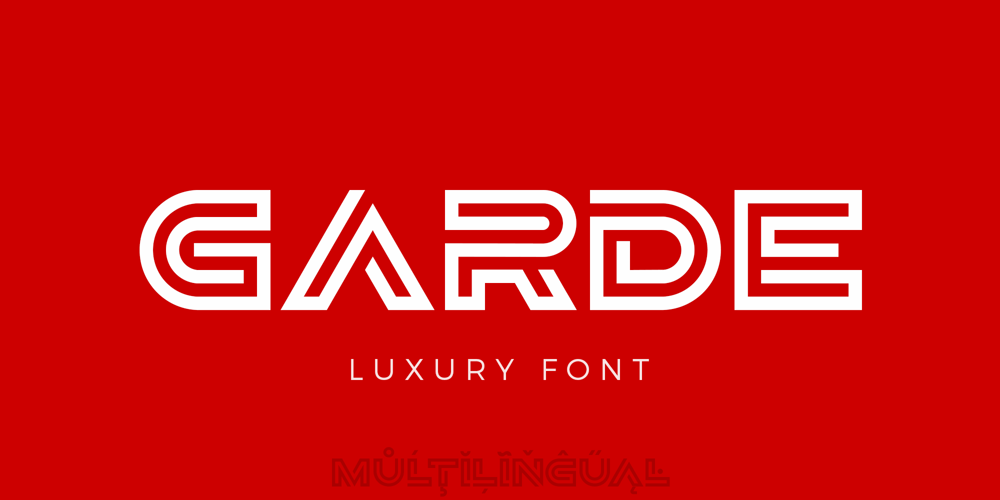
Garde Font Family was designed by Dmytro Poliakh and published by Sentavio. Garde contains 1 styles and family package options. GARDE is stylish creative font useful for creating titles, monograms, logos in such areas as Beauty, Fashion, Jewelry, Luxury, Corporate business.